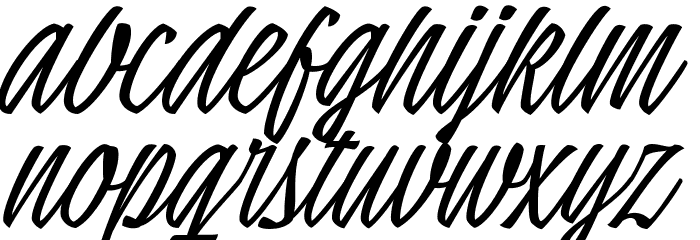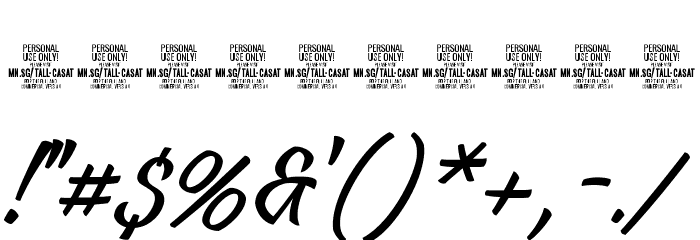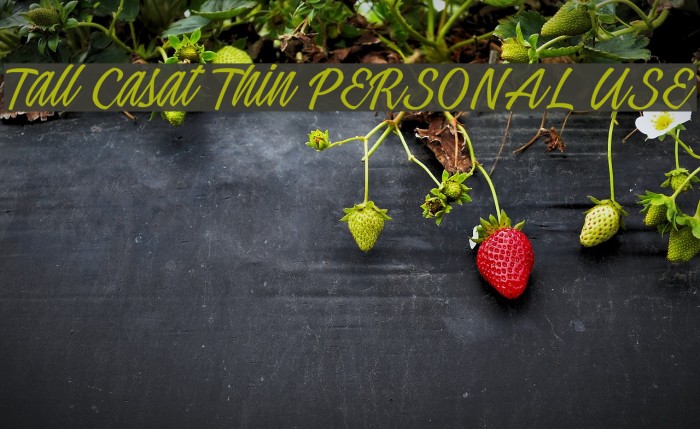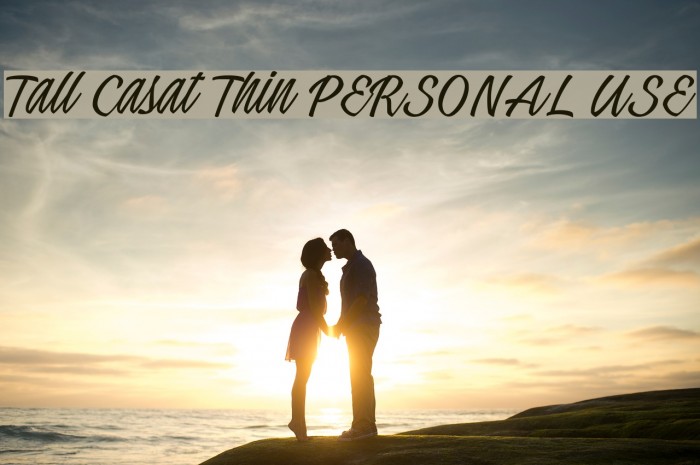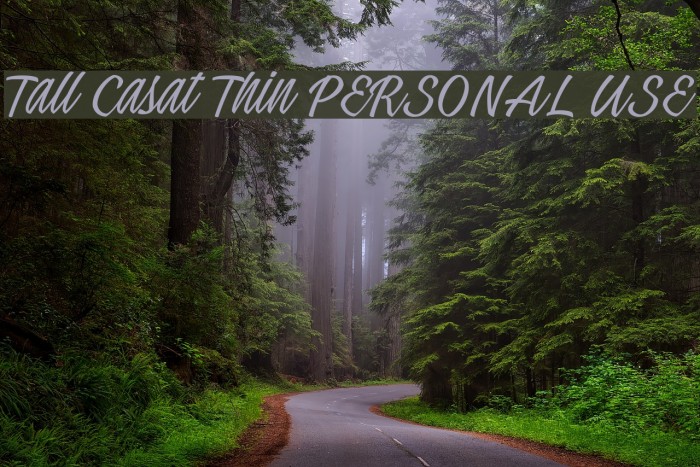
Tall Casat Thin PERSONAL USE Font
This font features a dynamic and flowing script style, characterized by its tall and slender letterforms. The strokes are smooth and connected, giving it a handwritten appearance with a modern twist. The uppercase letters are elegant and slightly slanted, while the lowercase letters maintain a consistent flow, enhancing readability. The numerals and special characters complement the overall style, maintaining the same fluidity and elegance. This font is ideal for projects that require a personal touch, such as invitations, greeting cards, and branding materials. Its unique style makes it stand out, offering a blend of sophistication and approachability.
A tall, slender script font with a modern, handwritten style.
- Proposed Projects: Ideal for invitations, greeting cards, branding, and personal projects.